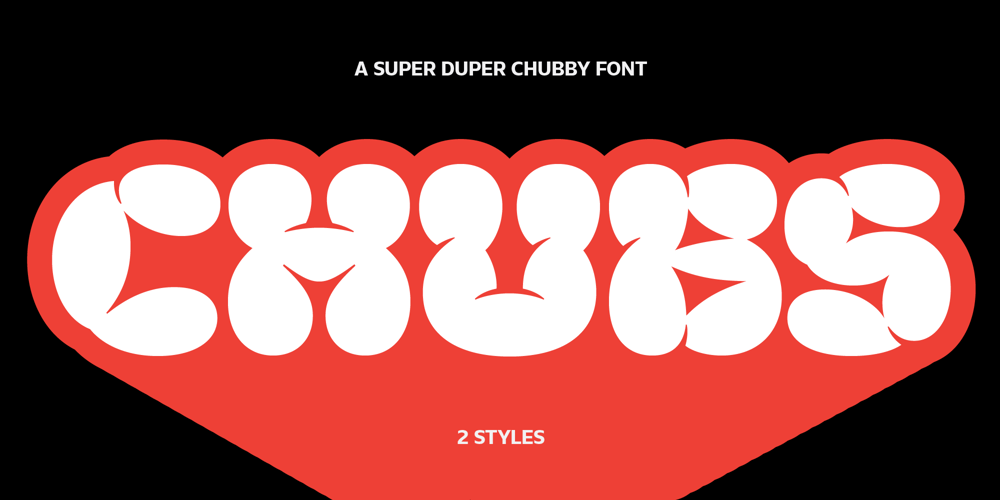
Chubs
Chubs font
Chubs Font Family was designed by Parin Rungpattarathakun and published by Type.p. Chubs contains 2 styles and family package options. “Chubs,” a typeface specifically designed for large display sizes, perfect for making a bold statement. Each letter in Chubs has been meticulously crafted to possess a thick and prominent appearance, ensuring that your designs leave a lasting impact on viewers.Chubs’s distinctive weight and blackness make it an ideal choice for a wide range of applications, including posters, packaging, and logos. Whether you want to create eye-catching promotional materials or design a powerful brand identity, Chubs has got you covered.Within the Chubs typeface family, you’ll find two distinct styles, each with its own personality and visual appeal. The first style, “Chubs Black,” features letters with a captivating slit, reminiscent of a belly that overlaps. This distinctive groove adds an extra layer of visual interest and uniqueness to your designs.On the other hand, “Chubs Filled” offers a solid and plump appearance, without the characteristic slit. This style amplifies the chubby nature of the letters, resulting in a bold and impactful display.To further enhance your creative options, both styles within the Chubs family include an alternate character set featuring a wink shadow in every letter. These additional characters provide a touch of fanciness and playfulness, allowing you to experiment and add unique elements to your designs.Choose “Chubs” for your next big project, and witness the boldness and charm that sets your designs apart from the rest. Let Chubs bring your ideas to life and make a powerful visual statement that captures attention and leaves a lasting impression.